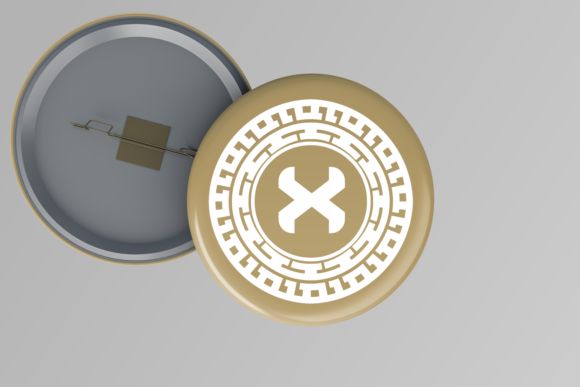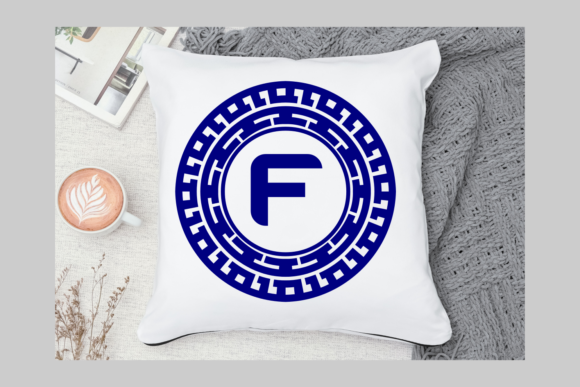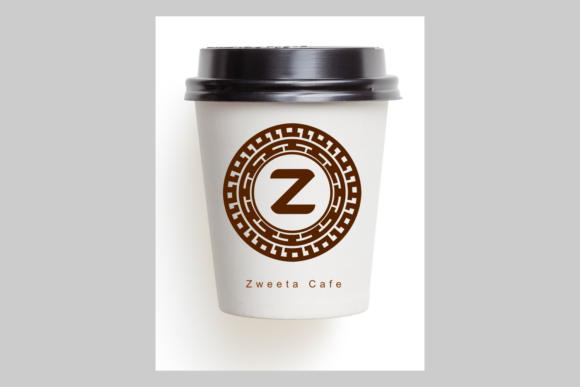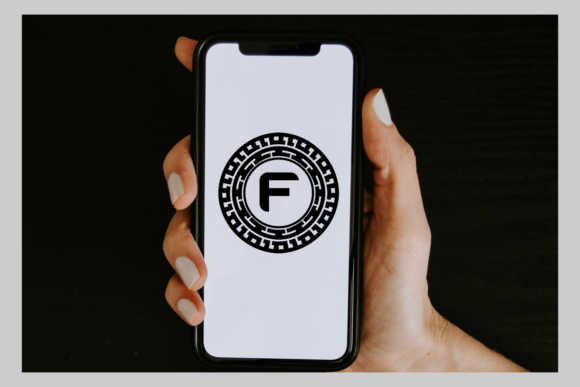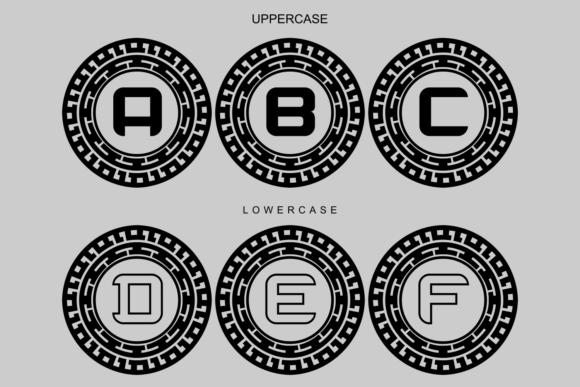
Introduction to Monogram Digi on Font
Have you ever stumbled upon a beautiful font that completely transforms your creative project? For designers and crafty individuals, discovering a stunning font can be a game-changer. It’s the moment when you envision your design ideas taking shape, and the right font brings it all together. I still remember the excitement I felt when I first laid eyes on Monogram Digi on Font – its intricate details and elegant design instantly captivated me.
As a valuable design resource, Monogram Digi on Font is a highly sought-after font that can elevate any project. Whether you’re working on love letters, wedding invitations, or other creative endeavors, this beautiful font is sure to make a lasting impression. With its high-quality design and transparent background, Monogram Digi on Font is perfect for designers looking to add a touch of sophistication to their work.
Key Features of Monogram Digi on Font
- High-quality digital design with transparent background, ideal for creative projects and designs.
- Vector graphics with scalable resolution up to 300 DPI, ensuring crisp and clear visuals in any size.
- Unique, modern design that can be used for a variety of applications, from branding to web design.
Honest Review: Monogram Digi on Font
I recently stumbled upon the Monogram Digi on Font and I must say it’s a fantastic addition to any designer’s toolkit. The font is a perfect blend of modern and classic elements, making it suitable for a wide range of creative projects.
- High-quality design: The Monogram Digi on Font boasts crisp lines, smooth curves, and a beautiful texture that gives it a premium feel.
- Limited character set: The Monogram Digi on Font has a limited character set, which may not be suitable for projects that require a wide range of characters.
- No bold or italic versions: Currently, there are no bold or italic versions of the font available, which may limit its use in certain design scenarios.
Overall, the Monogram Digi on Font is a great design resource that can elevate any creative project. While it has some limitations, its high-quality design and free download make it a worthwhile addition to any designer’s toolkit.
The Monogram Digi on Font is perfect for a variety of design projects, including social media graphics, presentations, logos, typography elements, and more. Its versatility and high-quality design make it a valuable addition to any design resource collection.